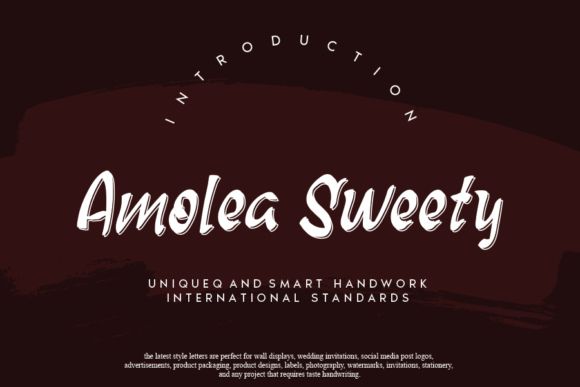
Amolea Sweety Font for a Polished Business Look
I still remember the moment I decided to upgrade my branding. I run a small online shop that sells handmade candles, and I was getting ready to launch a new line of lavender-scented jars. My packaging looked good, but it just wasn’t capturing the vibe I wanted. That’s when I discovered Amolea Sweety — a display font with such a warm, approachable feel that it instantly transformed how my brand looked and felt.
Amolea Sweety on Product Labels and Packaging Design
When you're an entrepreneur, your product labels are like your first handshake with customers. They need to be friendly, clear, and memorable. I had been using a basic sans serif font on my candle jar labels, and while it worked okay, it lacked personality. After switching to Amolea Sweety, everything changed. The casual charm of this display font gave my products a much more inviting look. It wasn’t too playful, not too formal — just right for the cozy, artisanal aesthetic I wanted to convey.
The font is incredibly readable even in smaller sizes, which is perfect for packaging titles or short descriptions. I also loved how it added a touch of elegance without feeling overdone. Now, every time someone sees my candle label, they immediately associate it with warmth and quality.
Amolea Sweety for Social Media Graphics and Digital Ads
As I started promoting my new line on Instagram, I realized how important typography is in digital spaces. My old font didn’t stand out as much as I wanted, especially in thumbnails or quick scroll views. With Amolea Sweety, each post now has a unique visual identity that keeps my audience engaged. Whether it’s a short headline about seasonal scents or a call-to-action for a sale, the font adds that extra layer of polish that makes people stop and read.
I’ve used it for both text overlays on photos and standalone promotional banners. It works great on web design elements like buttons and headers, and it feels natural in social media graphics. The versatility of this display font means I can use it across platforms without worrying about it looking mismatched or unprofessional.
Amolea Sweety in Website Banners and Brand Identity
A few months after updating my product visuals, I redesigned my website to reflect the same style. I chose Amolea Sweety for the main banner text because it carried the same down-to-earth appeal that my customers had come to expect from my packaging. This helped build stronger brand recognition — people started recognizing my logo and headlines before even reading the words.
Using one consistent typeface across all marketing materials really helps solidify a business’s identity. When your fonts match your values and tone, customers start to trust and remember your brand more easily. Amolea Sweety isn’t just a display font; it’s a tool that supports your brand message and makes it visually cohesive.
Amolea Sweety for Thank-You Cards and Stickers
One of the little things that make a big difference is the thank-you card that comes with every order. I switched those to Amolea Sweety too, and the feedback has been amazing. Customers say it adds a personal touch — something handmade and heartfelt. That’s exactly what I wanted. It shows attention to detail, and that kind of thing matters more than you might think.
Similarly, I use it on custom stickers for gift boxes and packaging wraps. These small design choices add up, and having a premium font like Amolea Sweety elevates everything. It gives the impression that you care about presentation, which often translates into customer loyalty and word-of-mouth recommendations.
Choosing Amolea Sweety Over Generic Fonts
There are plenty of free fonts out there, but many of them don’t have the right balance between creativity and professionalism. Amolea Sweety is handcrafted, which means it avoids the cookie-cutter look that so many businesses end up with. It feels authentic, like it was made with real people in mind — not just algorithms.
Since it’s a display font, it shines best in headlines, logos, and short phrases. For body text, I pair it with a clean sans serif font to keep things legible while maintaining the visual harmony. The key is to let Amolea Sweety take center stage where impact matters most.
Amolea Sweety in Menus and Editorial Design
My sister owns a café, and she recently asked me to help her redesign the menu. She wanted something that felt fresh and welcoming. We went with Amolea Sweety for the headings and title sections. It brought a sense of charm and simplicity that matched their cozy, community-focused vibe. Even the staff noticed how much easier it was to read compared to the previous font.
In editorial design, like newsletters or blog posts, Amolea Sweety can be used sparingly to highlight key phrases or section titles. It adds a creative edge without overwhelming the reader. Just a few lines here and there can guide the eye and enhance the overall experience of the content.
If you’re looking for a font that brings a touch of warmth and versatility to your brand visuals, Amolea Sweety is worth considering. Try it out on your next project and see how it can bring your brand to life with just a few letters.